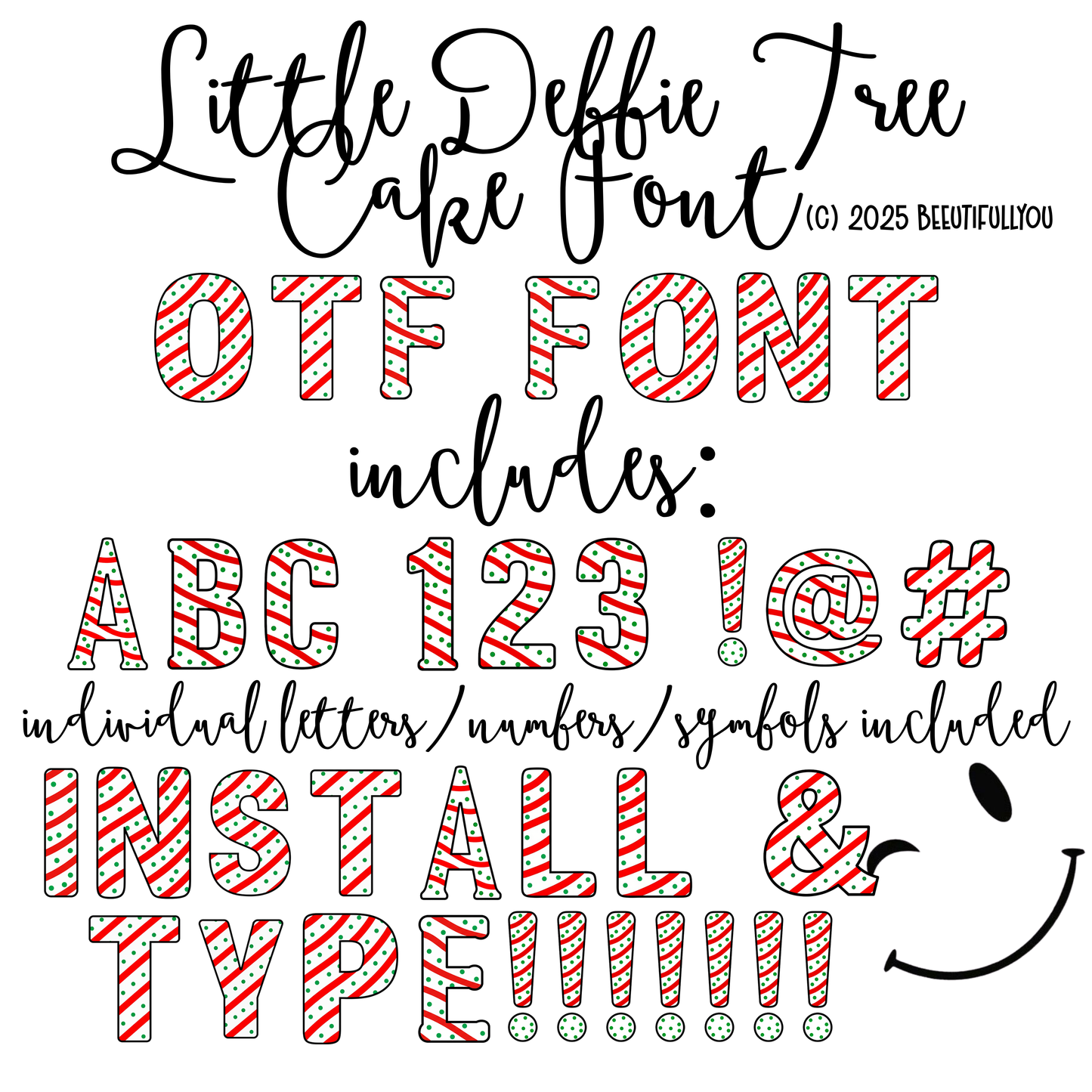
Little Debbie Tree Cake Font | OTF Installable Font + PNG Letters | Candy Stripe Christmas Font for Holiday Designs
Bring sweet holiday cheer to your designs with the Little Debbie Tree Cake Font! π°β¨
This festive OTF font was inspired by the classic Christmas Tree Snack Cake and features striped red, green, and white frosting patterns that look perfect on holiday shirts, mugs, cards, and digital designs.
Each letter, number, and symbol includes a playful candy stripe pattern with bold outlines and festive color tones β perfect for adding that handmade holiday charm to your projects!
Turn your designs into holiday treats with this sweet, candy-striped Christmas font! π°β€οΈπ